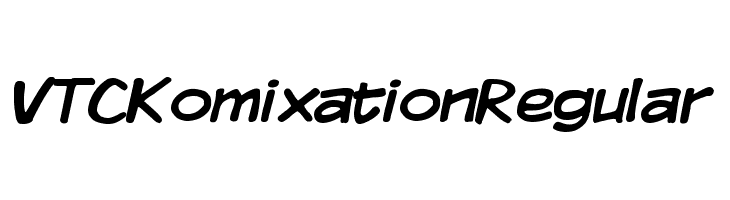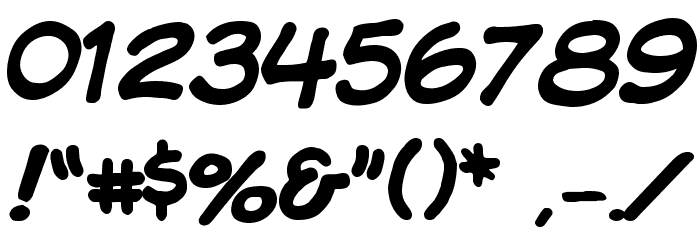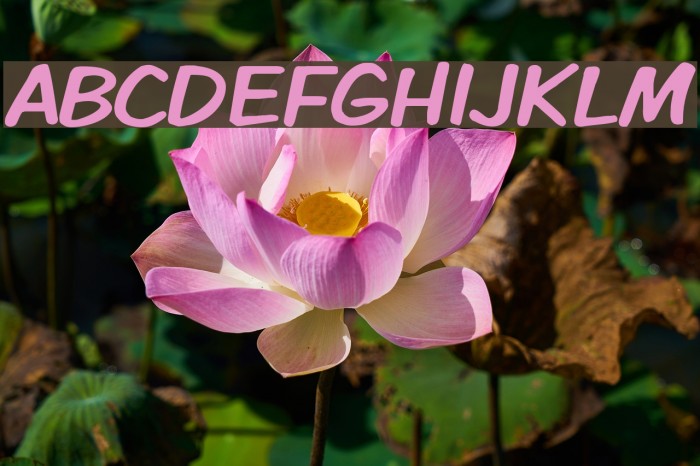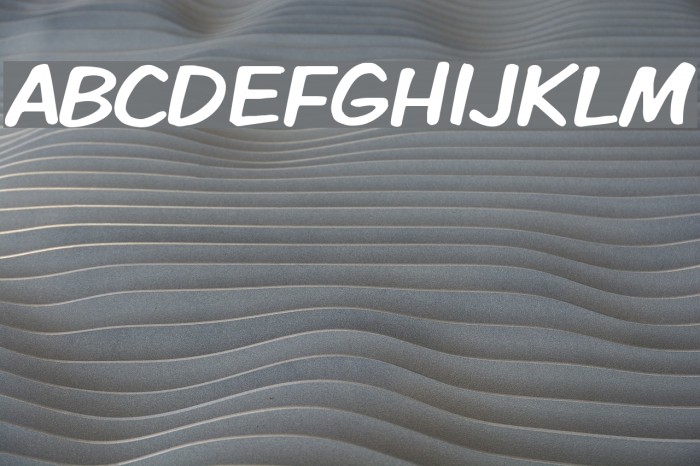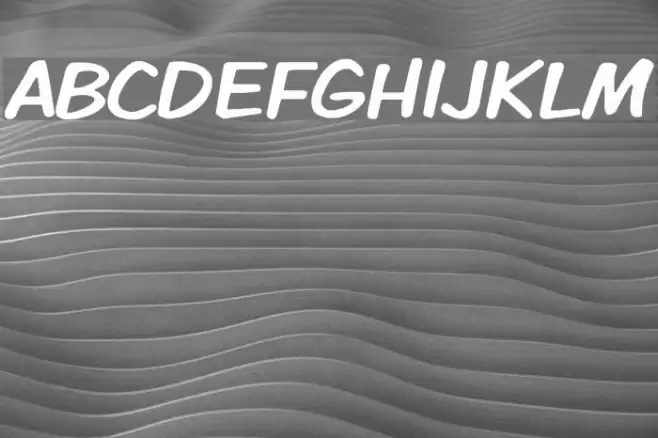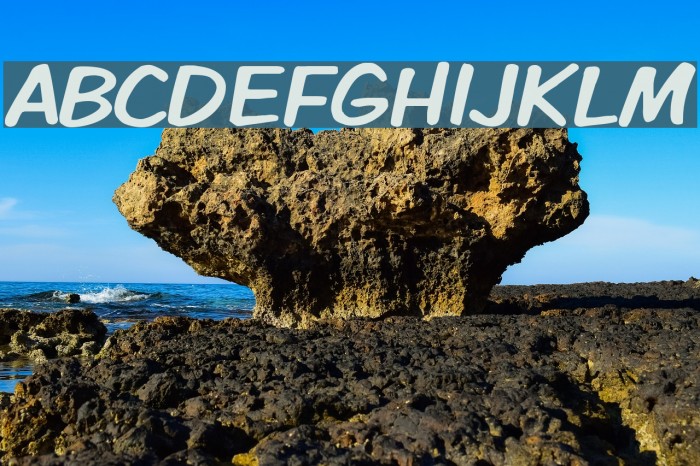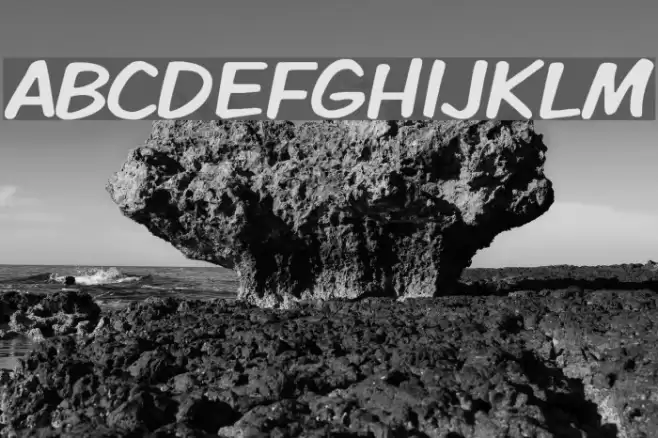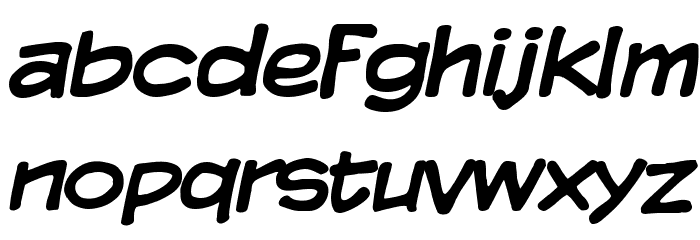
VTCKomixationRegular Font
VTCKomixationRegular Description
This font exhibits a playful and dynamic style, characterized by its bold and rounded letterforms. The strokes are smooth and slightly slanted, giving it a casual and informal appearance. The uppercase and lowercase letters maintain a consistent flow, while the numerals and special characters complement the overall design with their rounded edges. The font's energetic and friendly vibe makes it suitable for a variety of creative applications.
| Overall Style | Playful |
| Proposed Projects | Ideal for comic books, children's books, playful branding, and casual posters. |